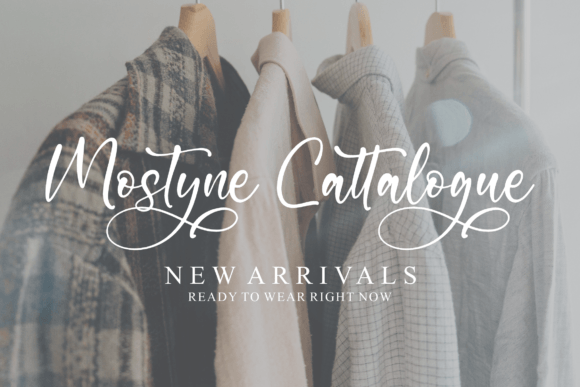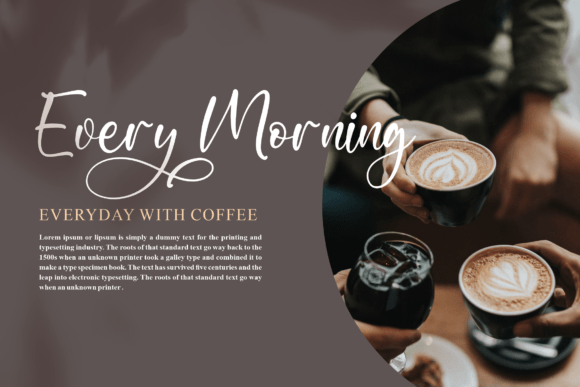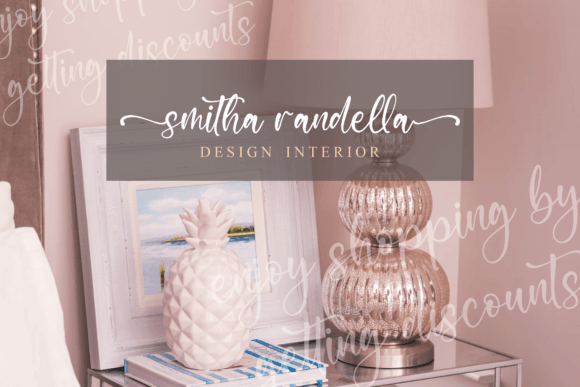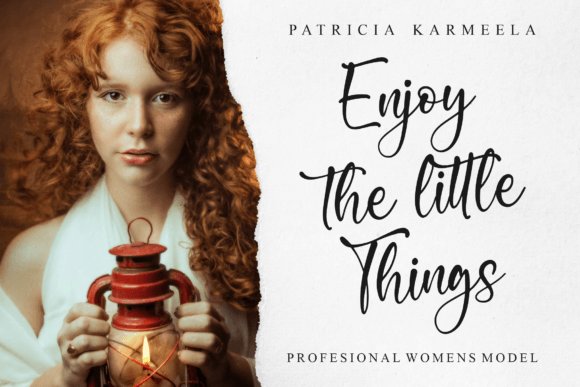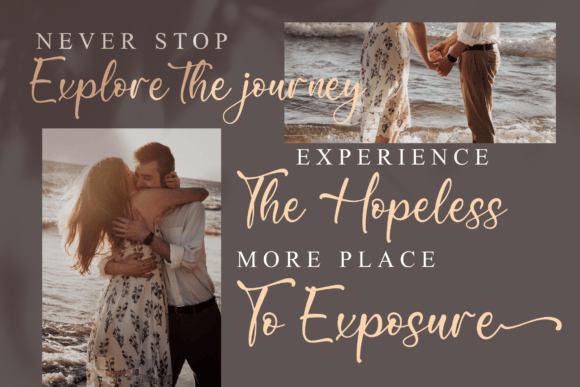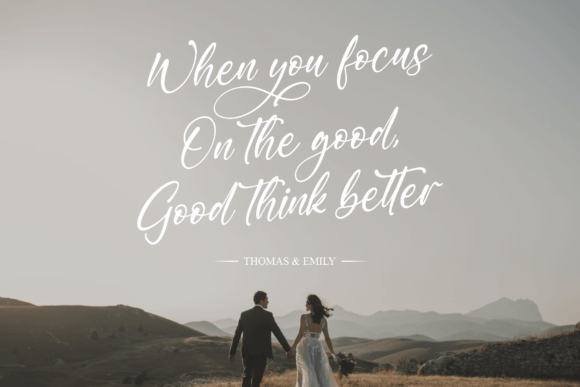
Introduction to Mylantyka Font
Mylantyka is an elegant script font with a contemporary atmosphere and impeccable form, inspired by timeless classic calligraphy.
Not too thin and not too thick, balanced and varied, this font was designed to enhance the beauty of your projects .